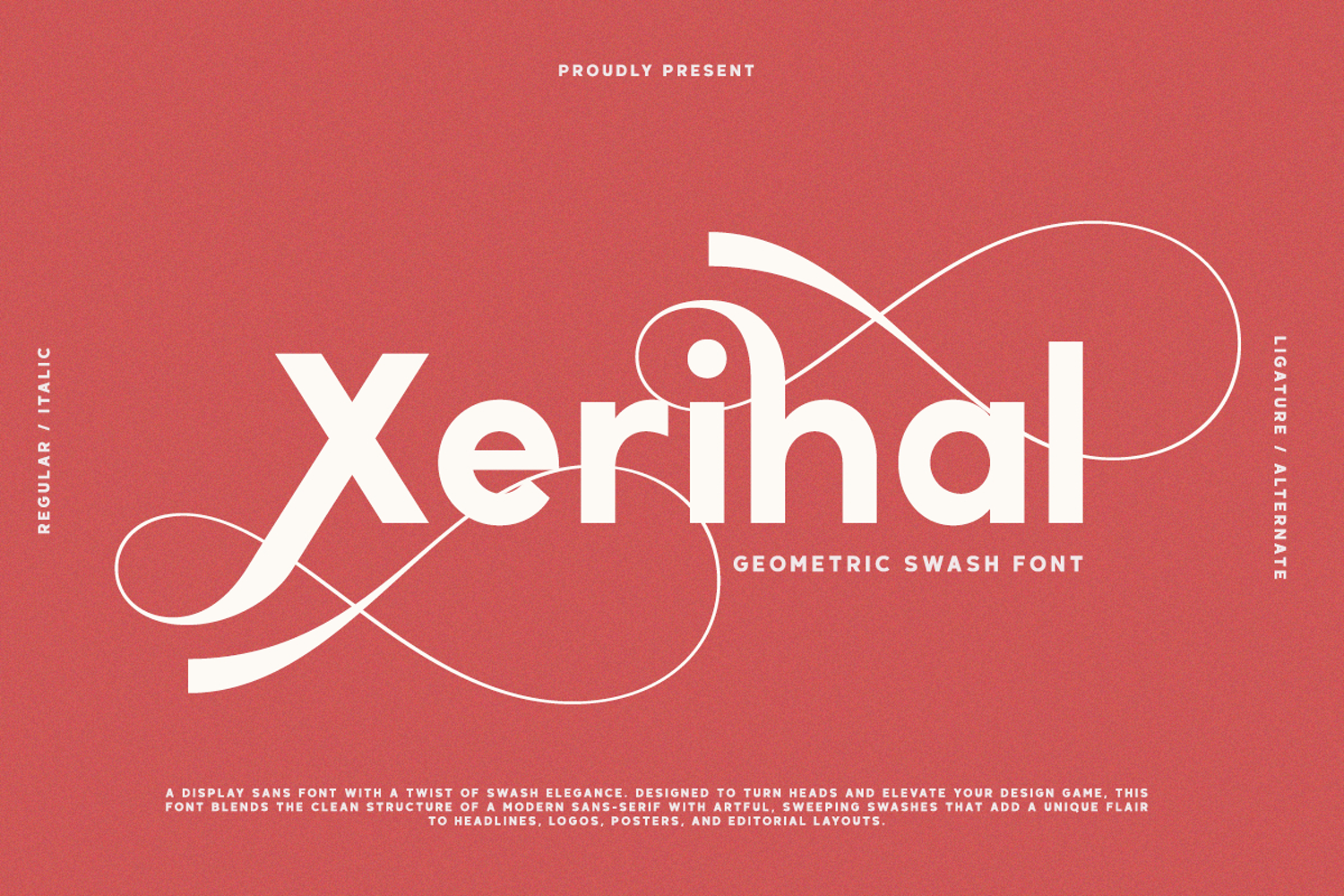
Xerihal - Geometric Swash Sans Font
Introducing Xerihal — a geometric swash modern font with beautifully flowing swashes and playful alternates. Designed for elegance and versatility, Xerihal is perfect for branding, editorial design, packaging, logos, invitations, and luxury projects that demand a refined aesthetic.
Font Features:
- Alternates & Ligatures
- Extensive Swashes for dramatic flair
- Numerals & Punctuation